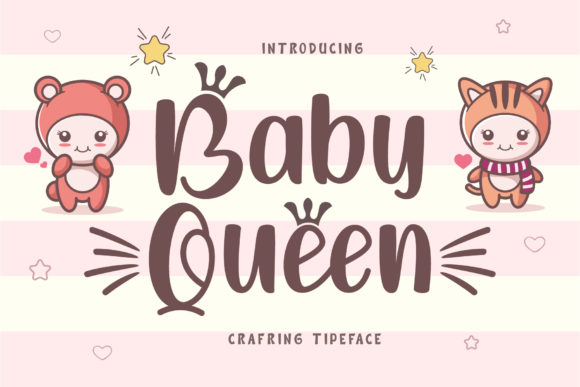
Introducing Baby Queen Font, a delightful and whimsical addition to your font collection! Created by the talented Graphicxell, this display font is perfect for adding a touch of charm and playfulness to any design project.
With its cute and quirky style, Baby Queen is a versatile font that can be used in a wide variety of contexts. Whether you're creating a birthday invitation, designing a logo, or crafting a social media post, this font will instantly captivate your audience.
One of the standout features of Baby Queen is its neat and simple design. The clean lines and carefully crafted letterforms make it incredibly easy to read, ensuring that your message gets across loud and clear. Say goodbye to confusing and cluttered typography!
But what truly sets Baby Queen apart is its ability to evoke emotions. This font has an undeniable charm that will bring a smile to anyone's face. It's like a virtual hug, spreading joy and happiness with every letter.
Imagine the impact of using Baby Queen in your Happy New Year designs! It's the perfect font to convey your excitement and optimism for the year ahead. From greeting cards to social media graphics, this font will make your message stand out and leave a lasting impression.